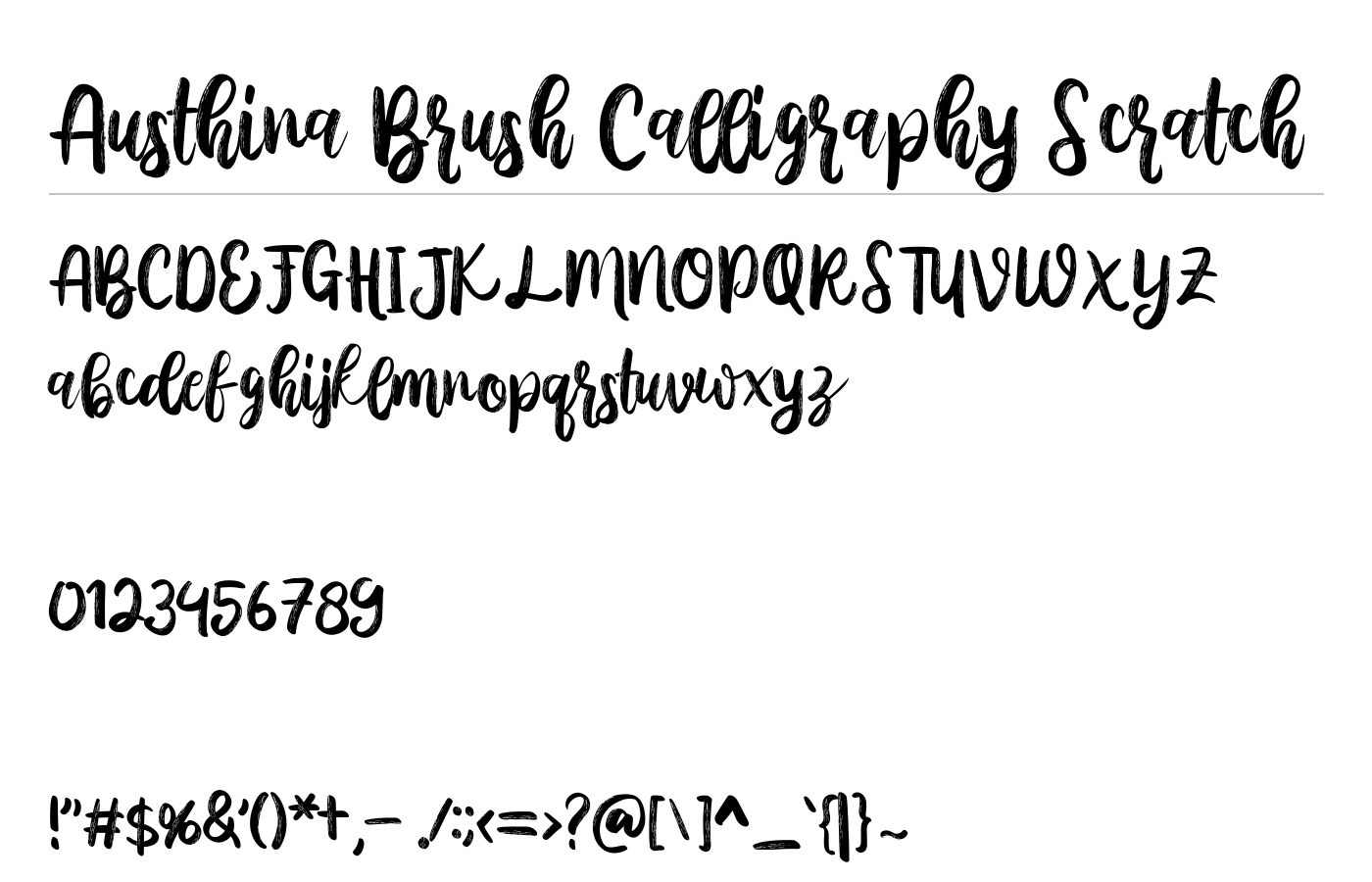
Austhina Brush Calligraphy Scratch is a lively brush script font that combines energetic, hand-painted strokes with a playful, casual personality. Its irregular, textured lines and fluid letterforms create a warm, inviting feel perfect for creative projects, branding, and expressive headlines. This font works beautifully in designs seeking a handcrafted, artistic touch with a modern, approachable vibe.
Austhina Brush Calligraphy Scra Font
About Austhina Brush Calligraphy Scra Font
| Font family | Austhina Brush Calligraphy Scra Font |
| Designer | Debut Studio |